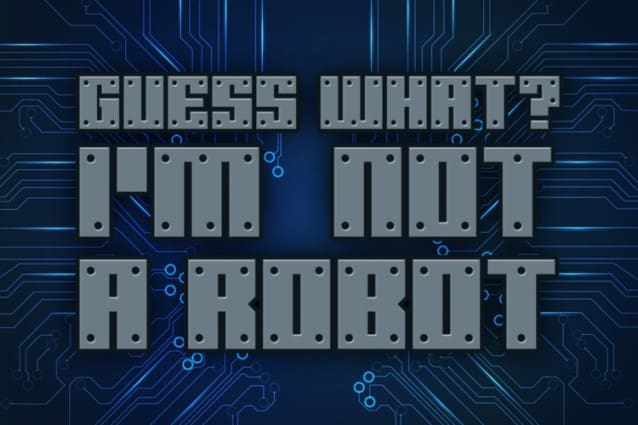
Guess What Font
Guess What Font – GuessWhat, I’m Not a Robot Font, This bundle features strong, confident and powerful typefaces designed to work great with sports logos, club branding, apparel applications, labels and more.